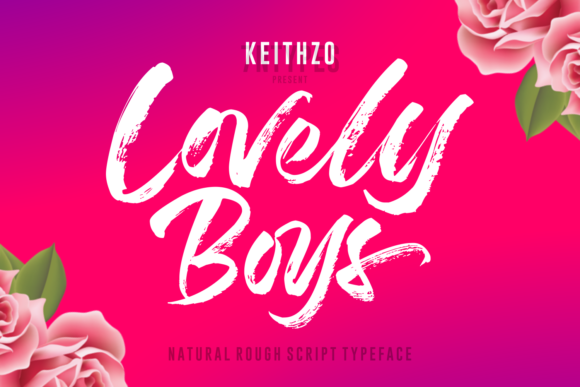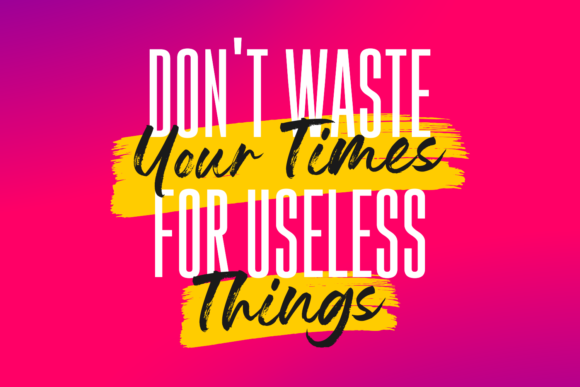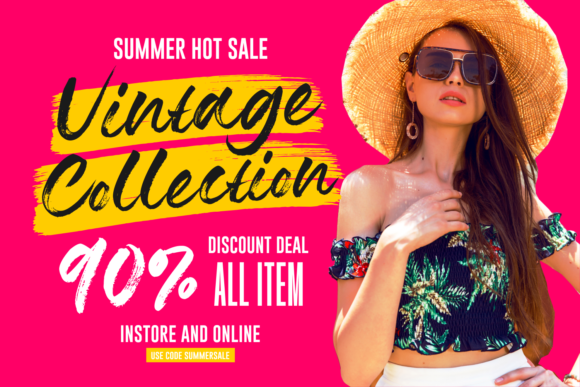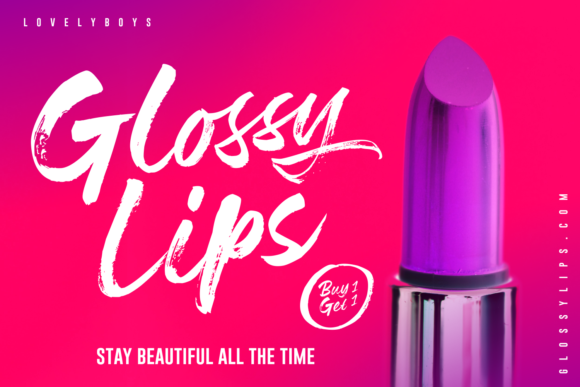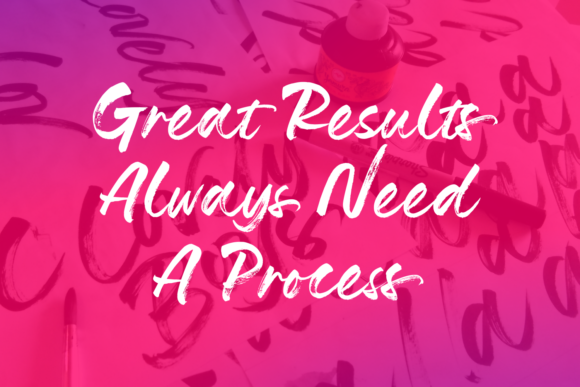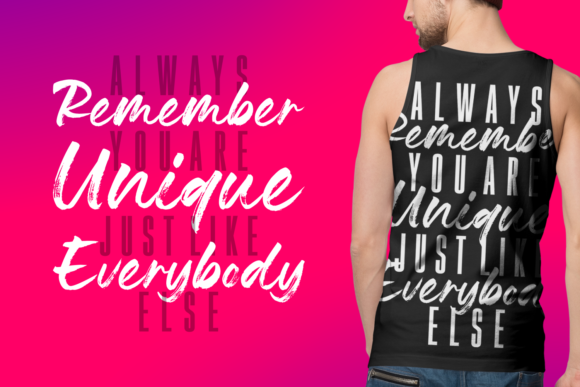
HomeScript FontsLovely Boys Font Script Fonts Lovely Boys Font FacebookXPinterestWhatsApp Lovely Boys Font Poster 2 Lovely Boys Font Poster 3 Lovely Boys Font Poster 4 Lovely Boys Font Poster 5 Lovely Boys Font Poster 6 Lovely Boys Font Poster 7 About Lovely Boys Font The Lovely Boys is a natural script font. It has a rough look which will stand out in any design! DOWNLOAD NOW People also explored Mallory Santiago Font Qualifier Font Kwoto Semi-Bold Font Moreya Font Beach Moment Font Ghost Gallup Font Beauties Bright Font Angsert Font Hinelka Font 291 0 TagsLovely Boys Font Previous articleBlangkon Script FontNext articleGlamoury Font LEAVE A REPLY Cancel reply Comment: Please enter your comment! Name:* Please enter your name here Email:* You have entered an incorrect email address! Please enter your email address here Website: Save my name, email, and website in this browser for the next time I comment. Personal Use Free Vanchrome Personal Use Free Read more about this font Jelly Fish Personal Use Free Read more about this font Fakedes Personal Use Free Read more about this font Adeline Personal Use Free Read more about this font BLOG Fonts That Capture the Spirit of New York City New York City is more than just a place—it’s an experience, a rhythm, a visual language... Best Fonts for T-Shirt Design – Top 2025 Picks Exploring Font Trends Free vs Paid Fonts: Why Investing in Premium Fonts Is Worth It